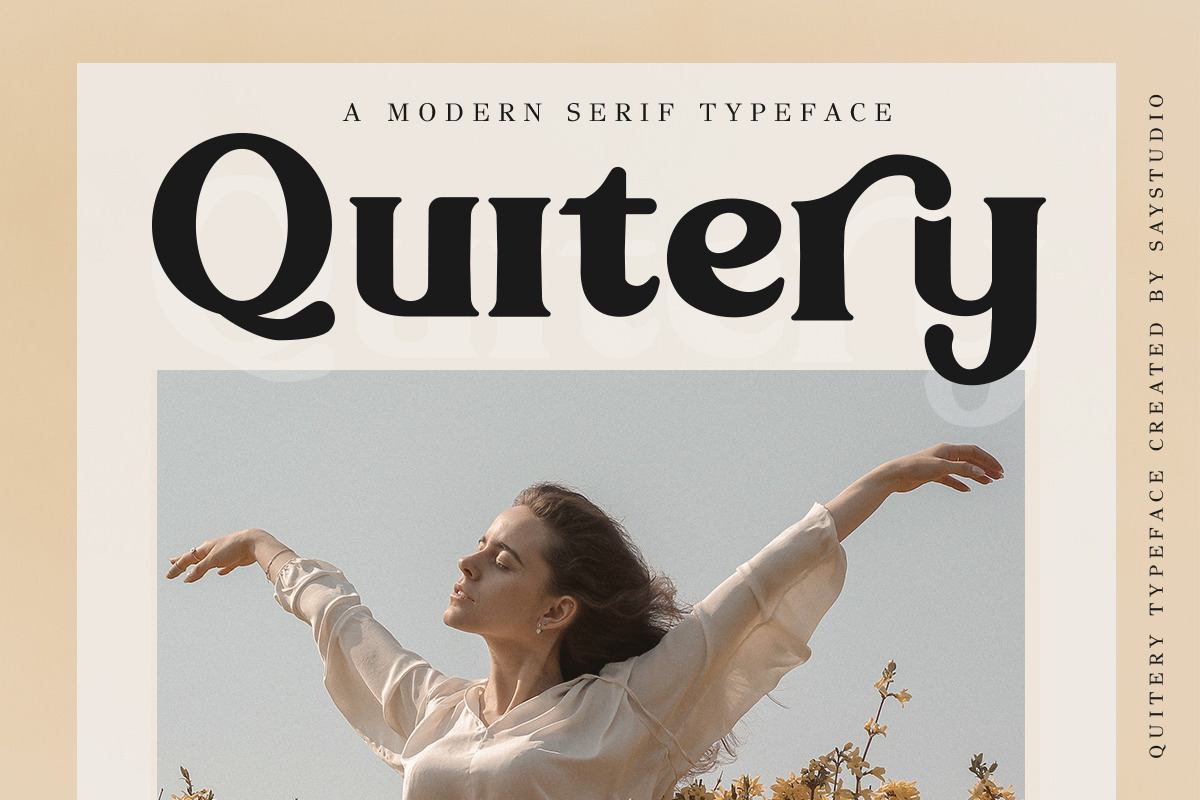
Quitery Serif Typeface Family Free Download is a refined and versatile font family designed to bring elegance and readability to your creative projects. With its classic serif structure and subtle modern twists, Quitery is perfect for editorial design, branding, wedding invitations, packaging, and web typography. Its graceful curves and strong presence make it a standout choice for any design that needs a touch of sophistication.
The Quitery Serif Typeface Family includes multiple weights and styles, allowing for flexible design combinations and consistent branding across different platforms. Whether you're creating bold headlines or polished body text, Quitery delivers professional results with timeless appeal.